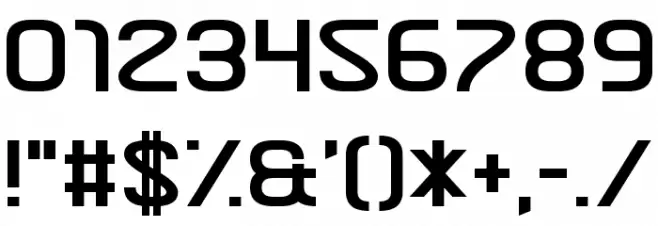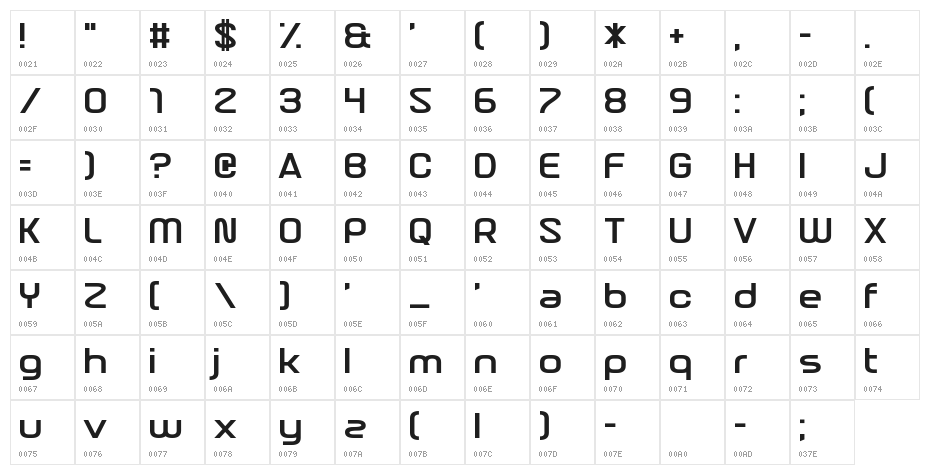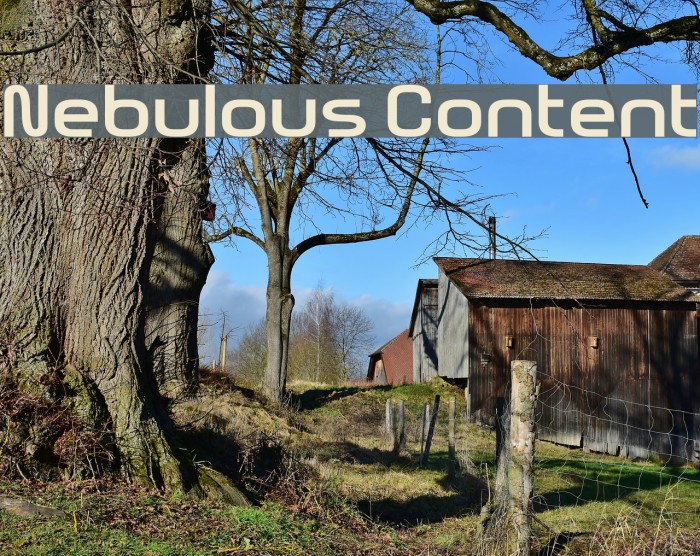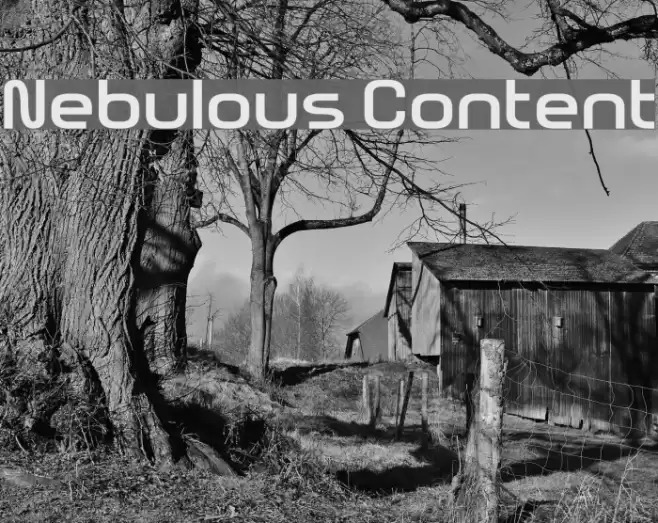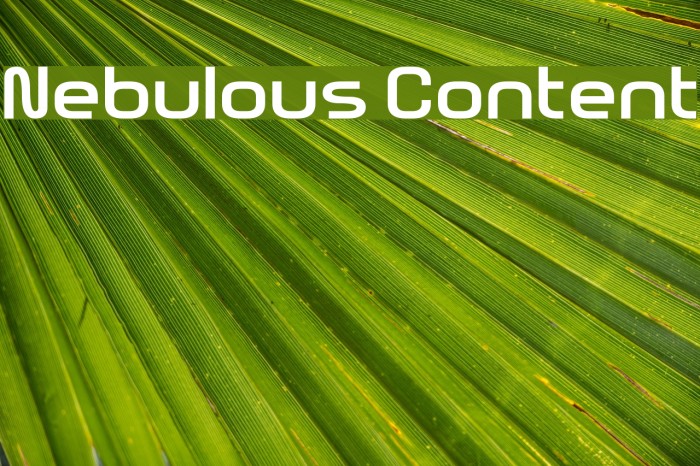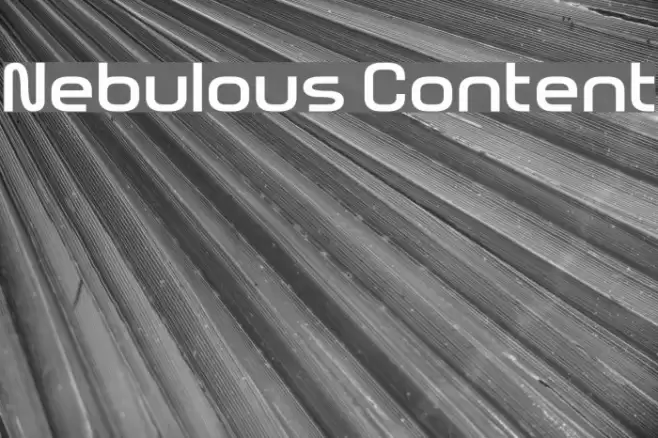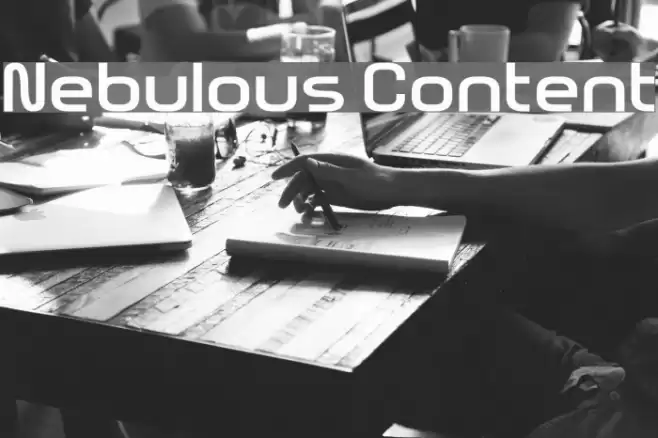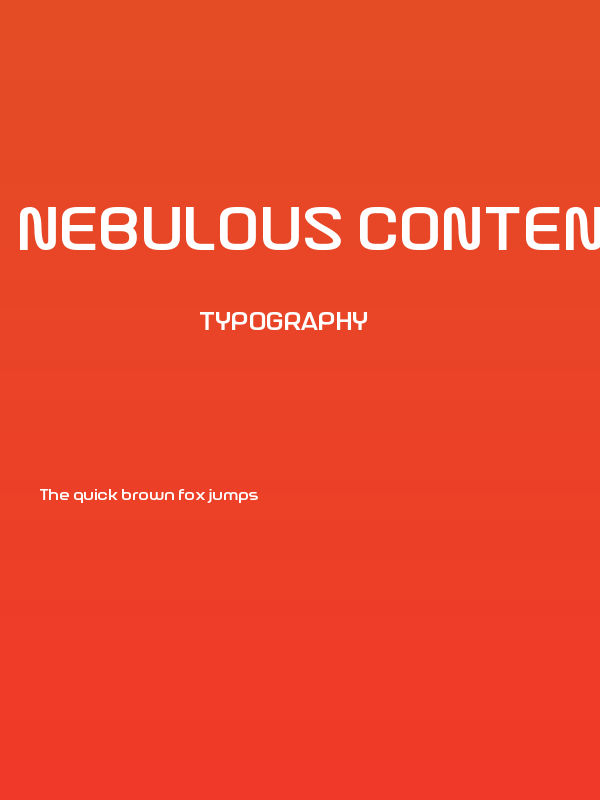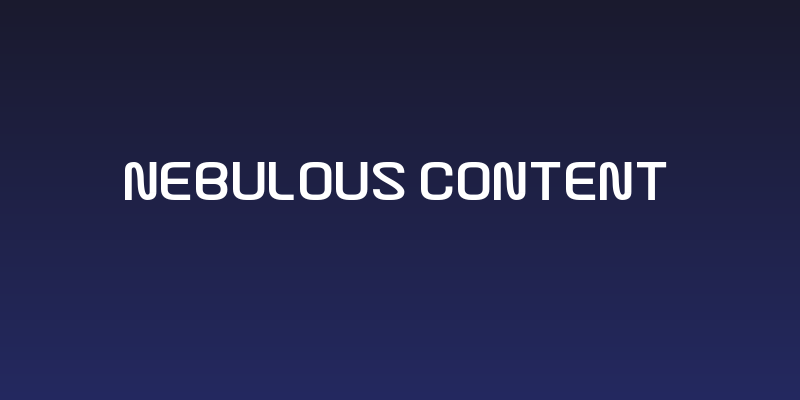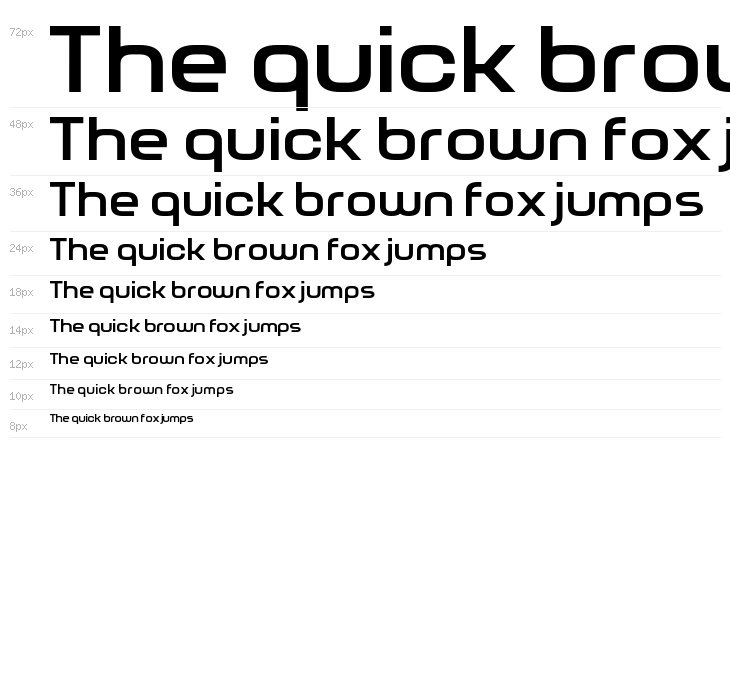
Nebulous Content Font
Nebulous Content Description
This font features a modern, geometric sans-serif design with clean lines and a uniform stroke width. The characters are well-proportioned, offering a balanced and harmonious appearance. Uppercase letters exhibit a slightly rounded structure, while lowercase letters maintain a consistent height and width, enhancing readability. The numerals are distinct and clear, matching the overall aesthetic of the alphabet. Special characters are designed with simplicity in mind, ensuring they integrate seamlessly with the rest of the typeface. This font is versatile, suitable for a range of digital and print applications.